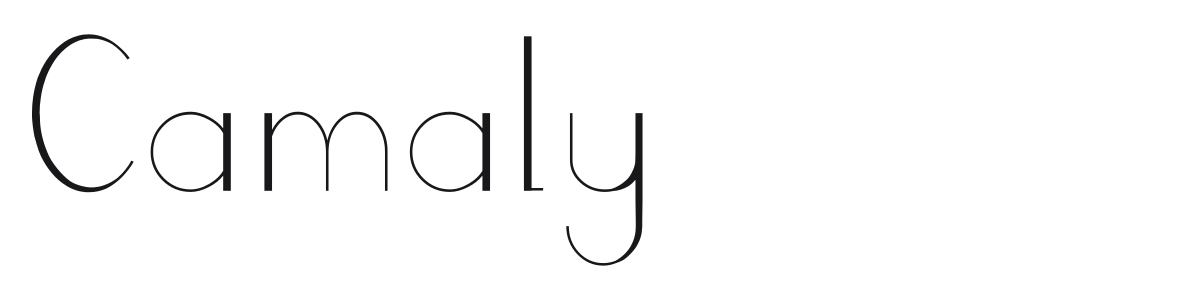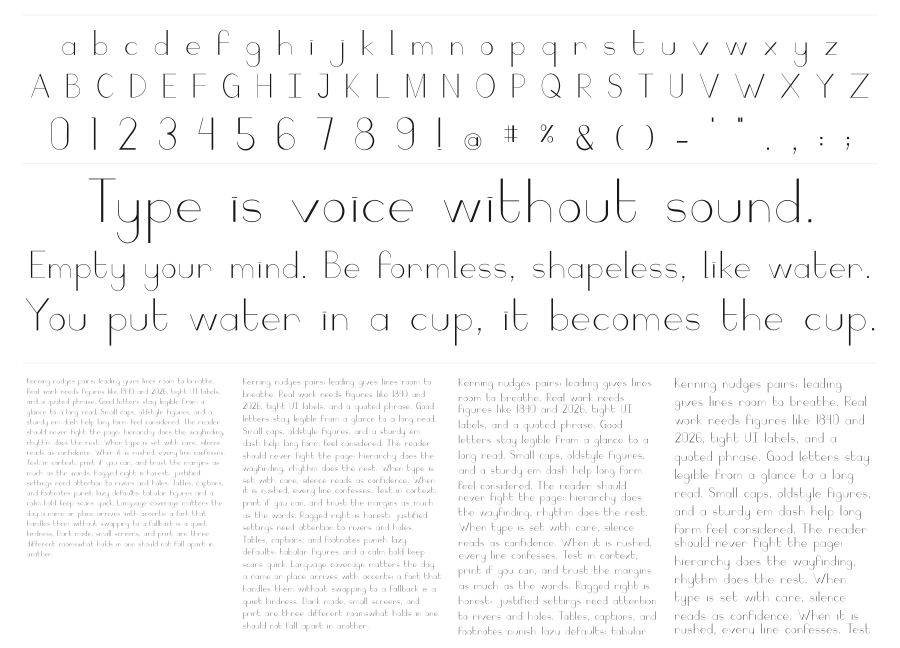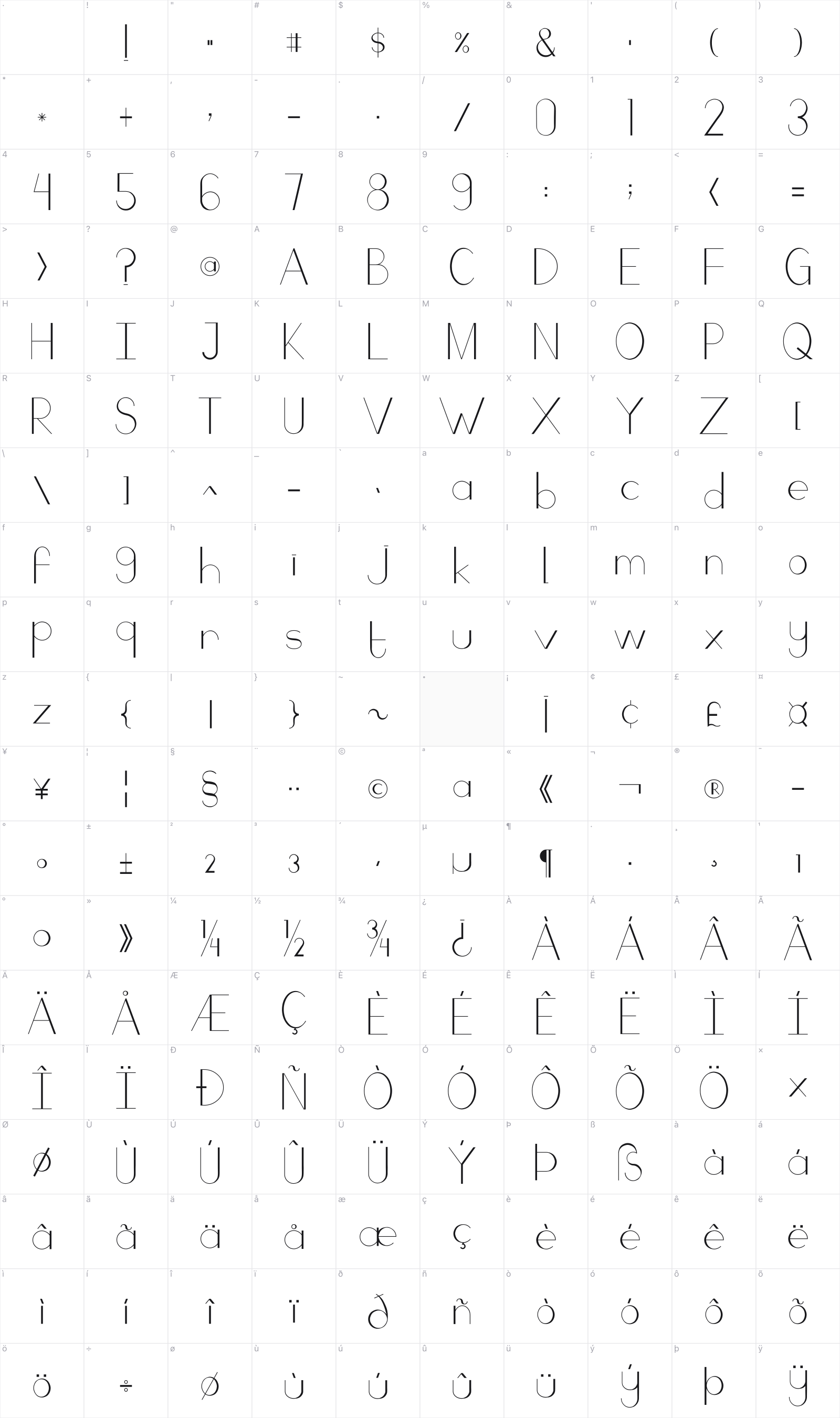
Camaly
Camaly is an ultralight geometric sans with hairline-thin strokes and a quietly refined personality. Its circular forms and open apertures give it an airy, high-fashion quality that sits somewhere between Art Deco elegance and contemporary minimalism. Best used at large sizes where the delicate weight can breathe.